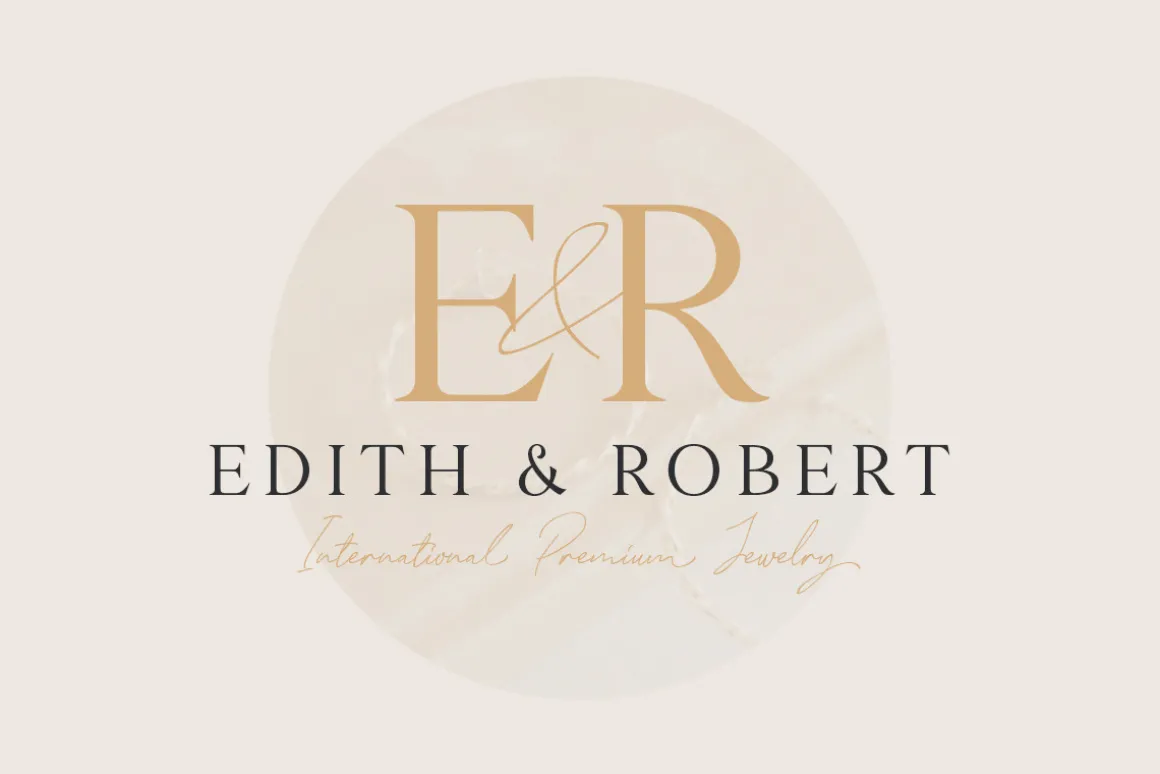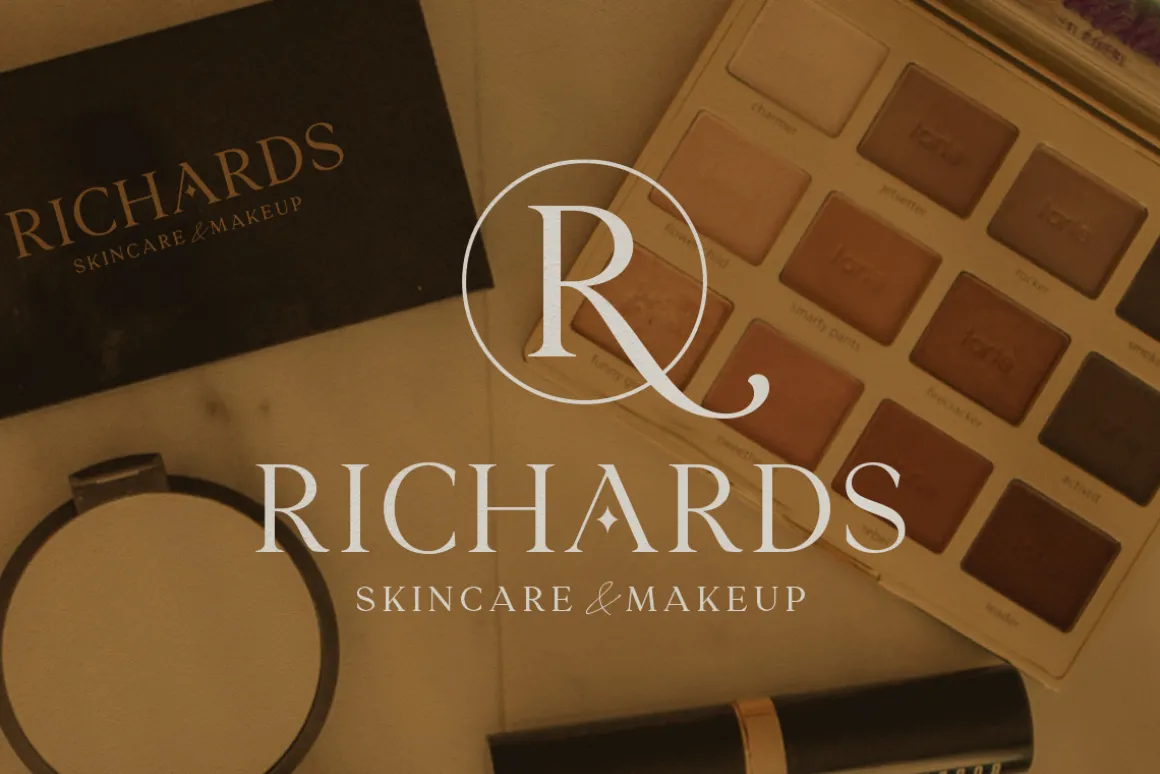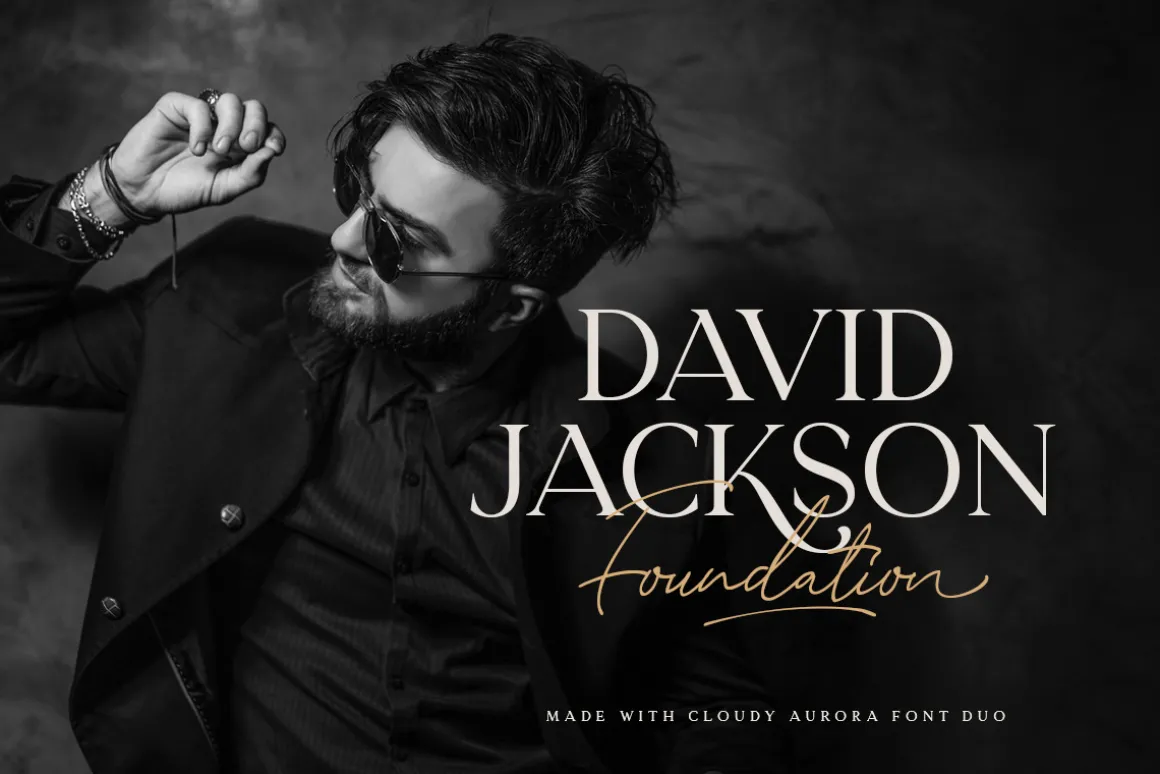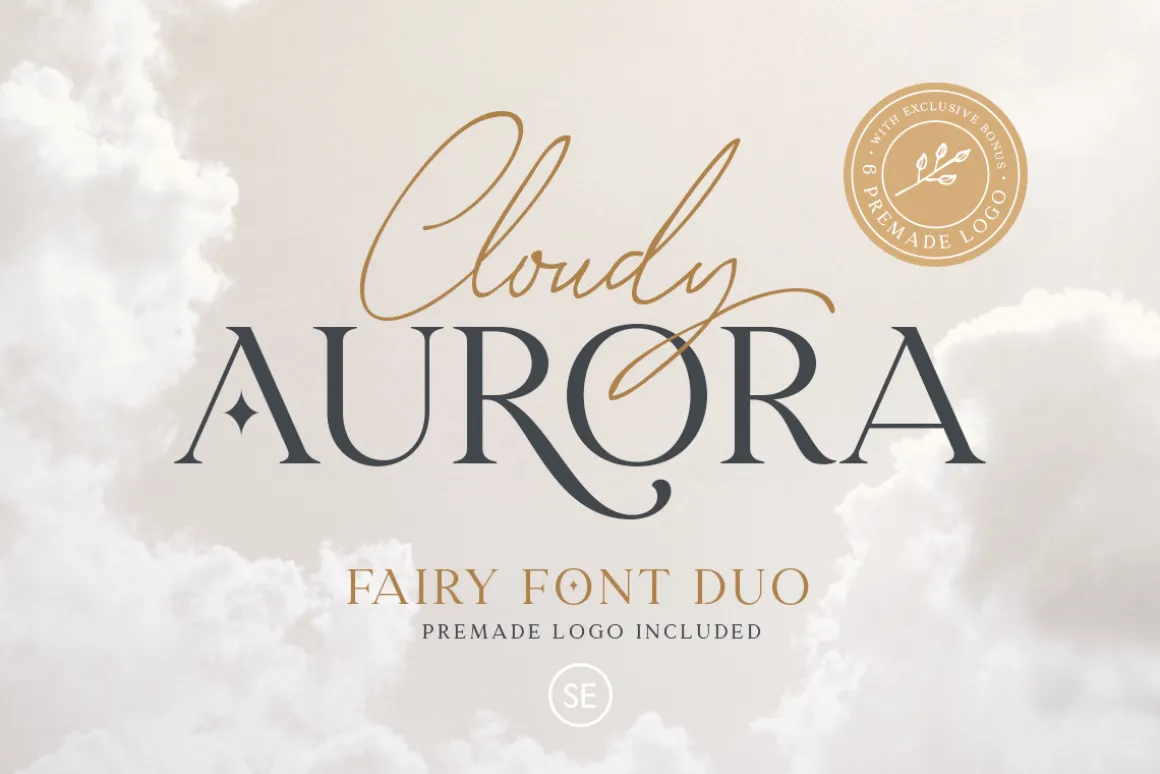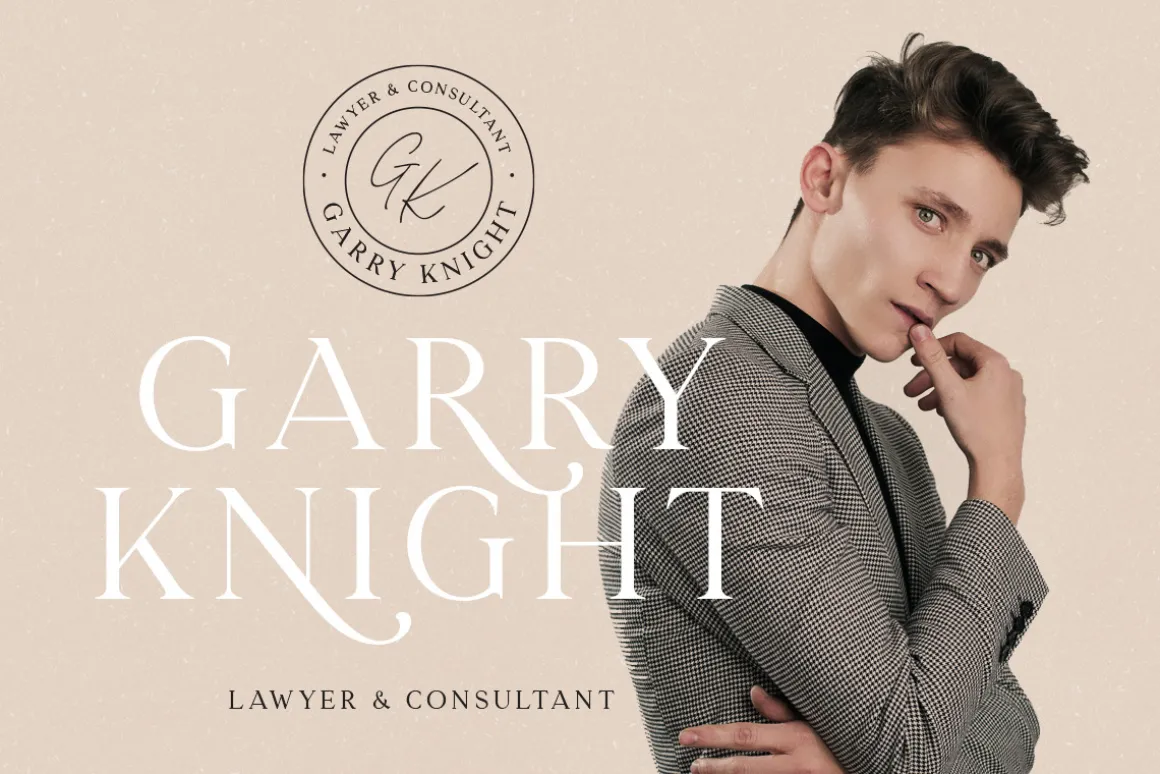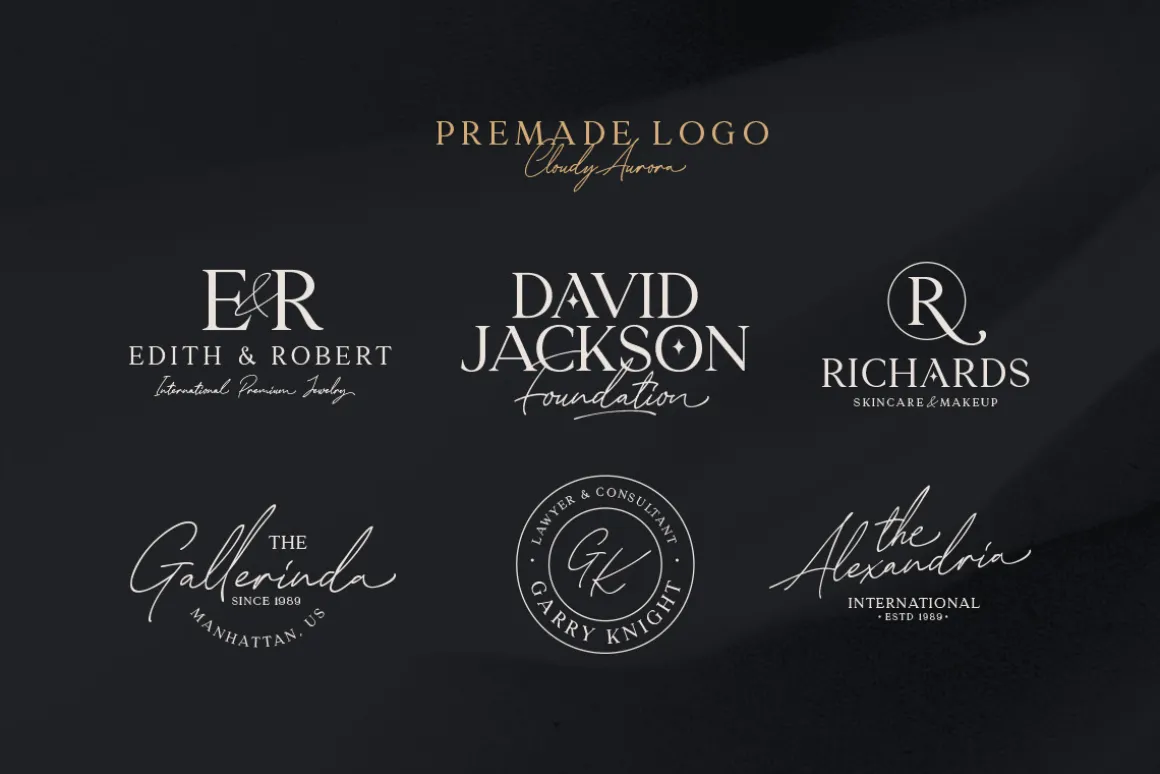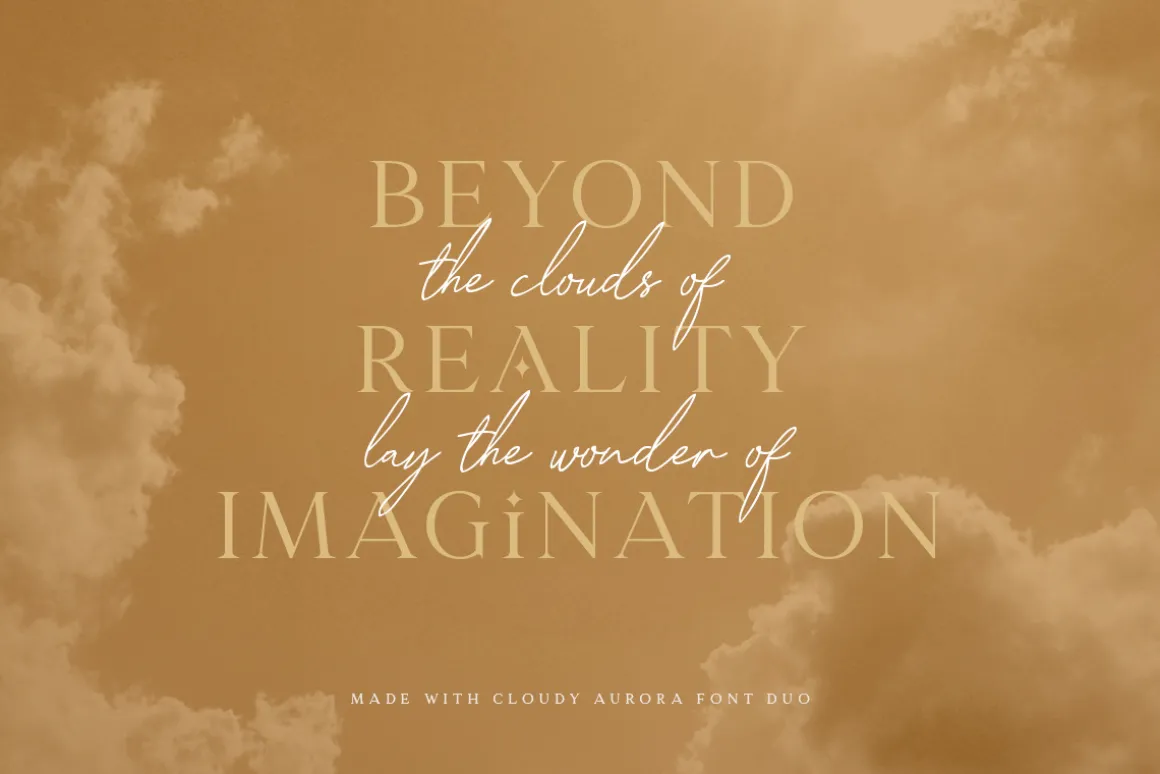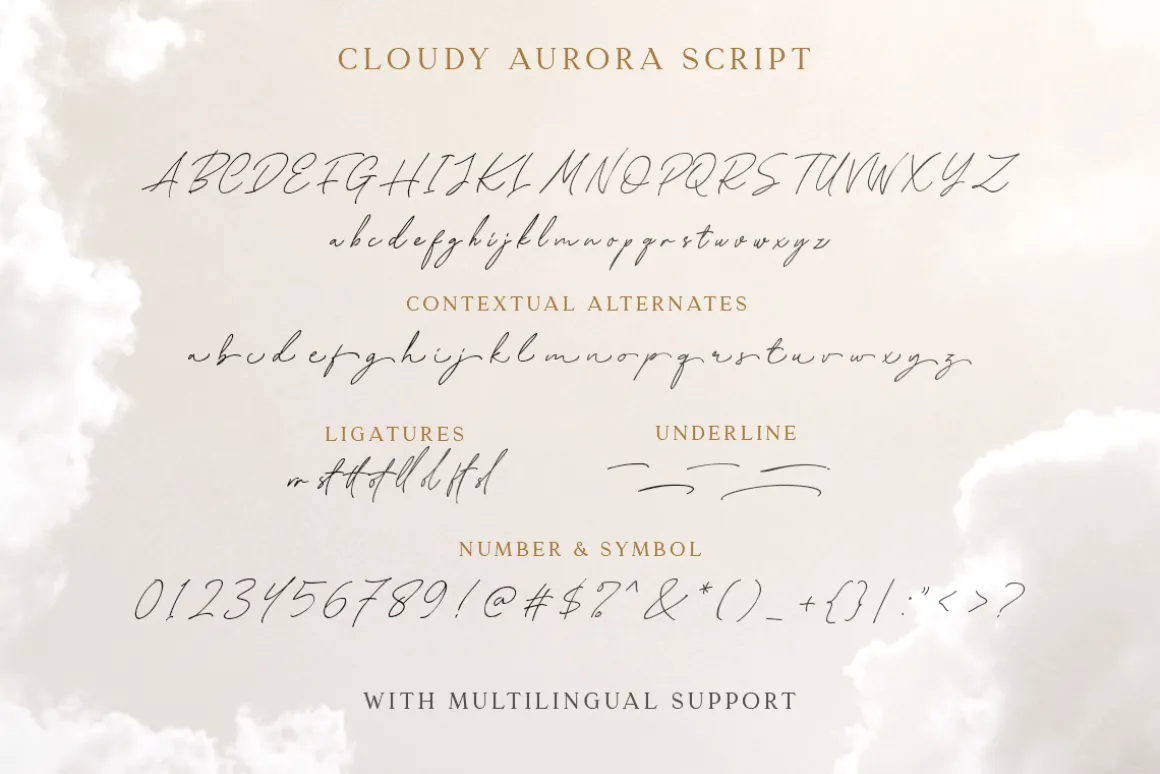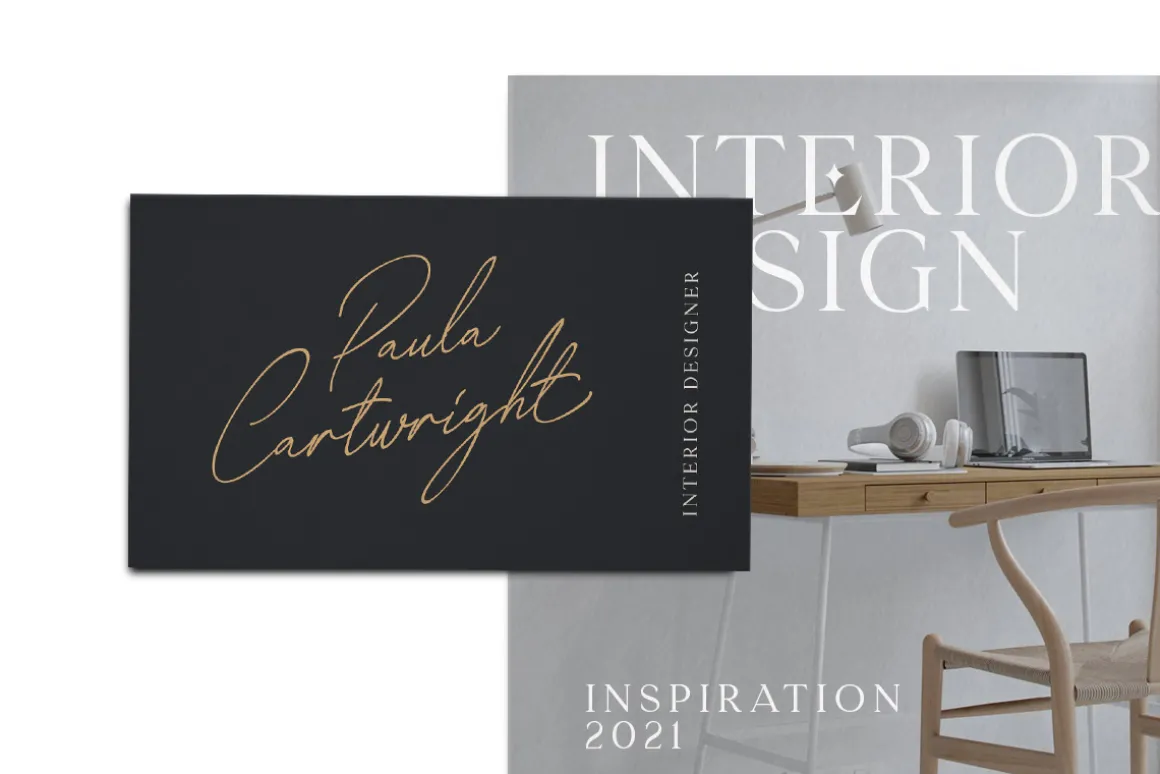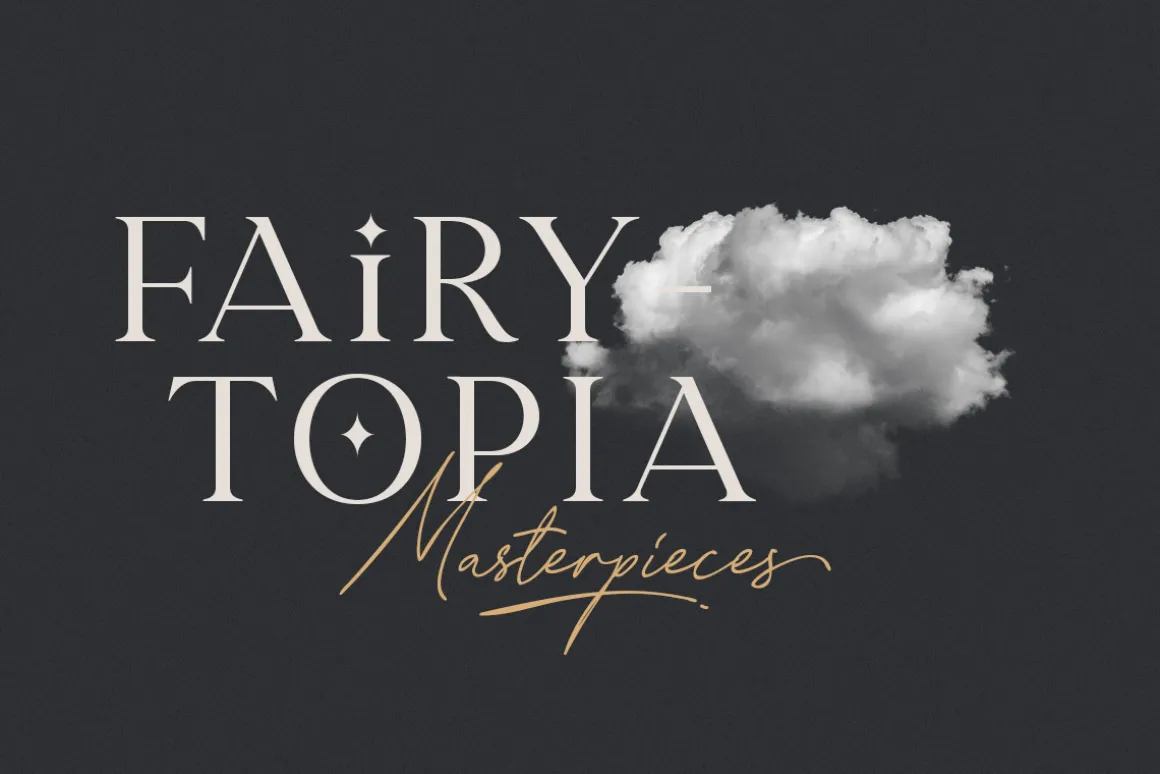
Introducing, Cloudy Aurora – Font Duo
Serif & Script with Bonus Logo
Cloudy Aurora is perfect combination between classic and fairy serif with signature script. Contain two fonts, the delicate modern serif and a free hand writing script. This font duo also support multilingual, number and symbol, end swash and many ligatures. Also this font already PUA Encoded. Including exclusive bonus, 6 beautiful premade logo which will make it easier for you to make a logo!